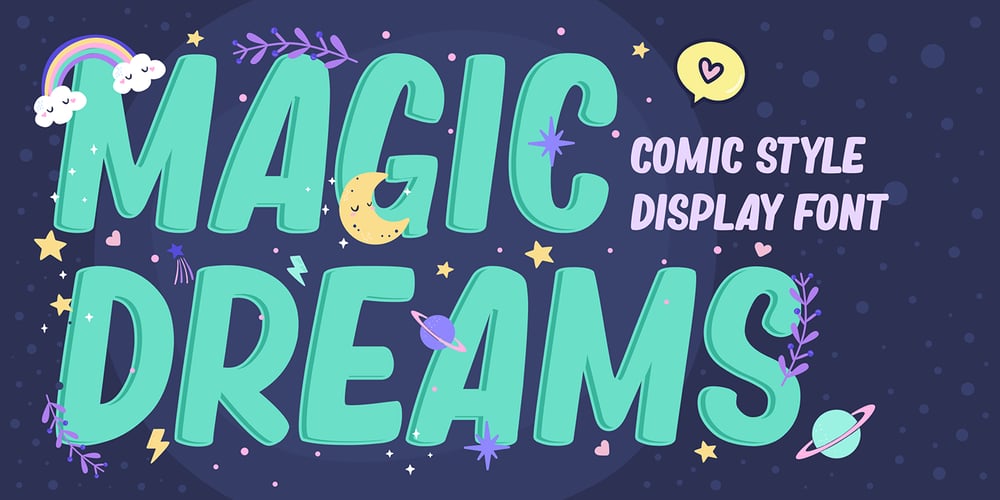
Magic Dreams Font Family was designed by Icep Anwar Fadhil and published by Figuree Studio. Magic Dreams contains 1 styles and family package options. Say hello to Magic Dreams font. Made with love and joy. A comic look, so it will make your design more beautiful, cute, fun, and colorful.